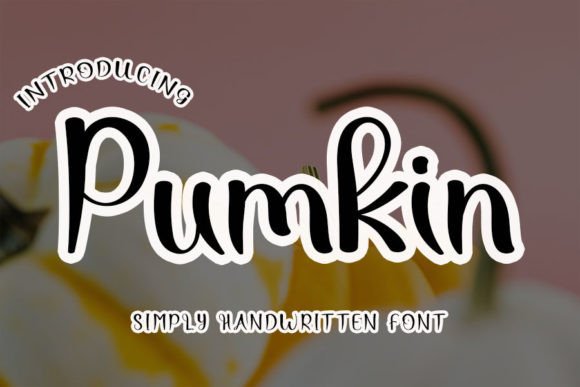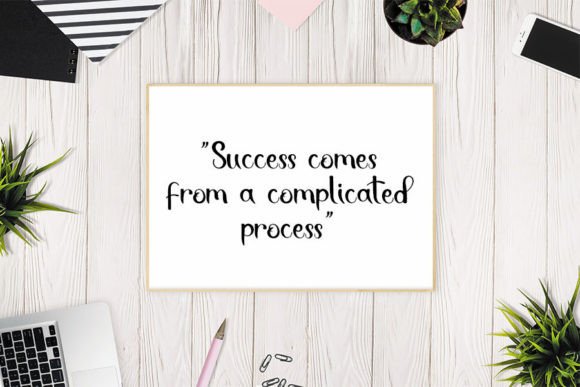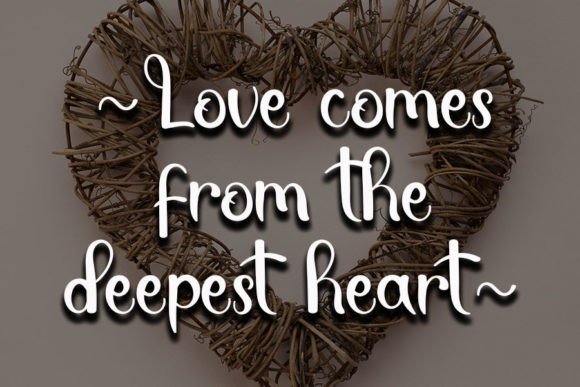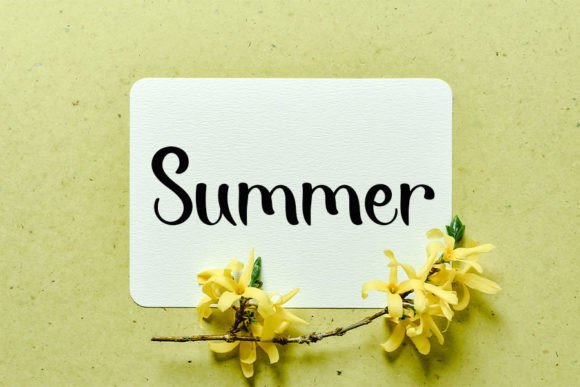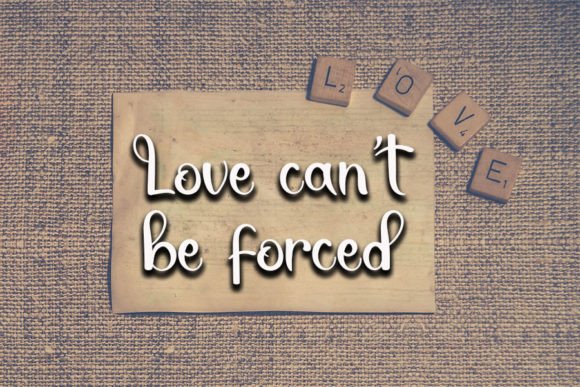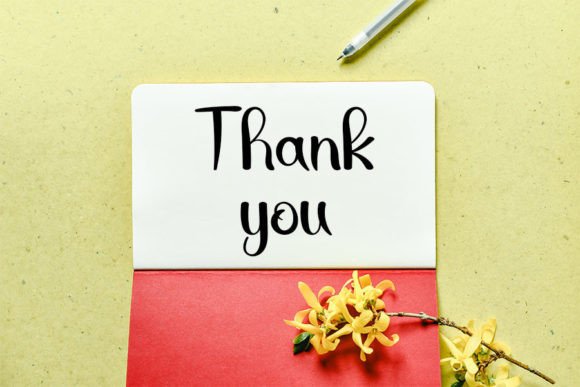
About Pumkin Font
The Pumkin Font Download is a magical handwritten typeface that combines elegance with playful charm. Carefully designed with clean lines and a hint of quirkiness, it creates a balance between sophistication and creativity. This makes it a versatile option for designers who want to add personality to their projects without sacrificing readability.
Whether you are designing a brand identity, creating social media graphics, or working on DIY crafts, Pumkin is the perfect fit. Its handwritten touch adds warmth, while its structured form keeps it professional and stylish.
Features of Pumkin Font
Choosing the Pumkin Font Download gives you access to a wide set of features that make it stand out in the world of handwritten scripts:
Elegant handwritten style with clean and modern curves
Quirky details that bring originality to every design
High readability across print and digital formats
Balanced form that looks professional yet approachable
Best Uses for Pumkin Font
The Pumkin Font Download is flexible enough to work across a variety of creative fields. Popular uses include:
Logos and Branding – Build identities that feel both stylish and approachable
Social Media Graphics – Add flair and elegance to your online presence
DIY and Craft Projects – Make handmade designs more personal and fun
Event Invitations – Create elegant wedding cards or festive party invites
Product Packaging – Enhance labels, merchandise, or gift boxes with a modern script
Web Design and Digital Art – Add charm to websites, banners, and ads
Its unique combination of elegance and charm ensures that your projects always stand out.
Why Choose Pumkin Font?
Designers choose the Pumkin Font Download because it effortlessly blends professionalism with creativity. Unlike generic fonts, Pumkin offers a handcrafted look that feels authentic and personal. It elevates branding while still being versatile enough for everyday creative work.
By using Pumkin, you are investing in a font that works across multiple platforms and design needs. Its adaptability makes it a long-term favorite for both casual creators and professional designers.
The Pumkin Font Download is a magical handwritten script with elegance and a quirky edge. From logos and branding to crafts and digital design, this font adapts to every project with ease.